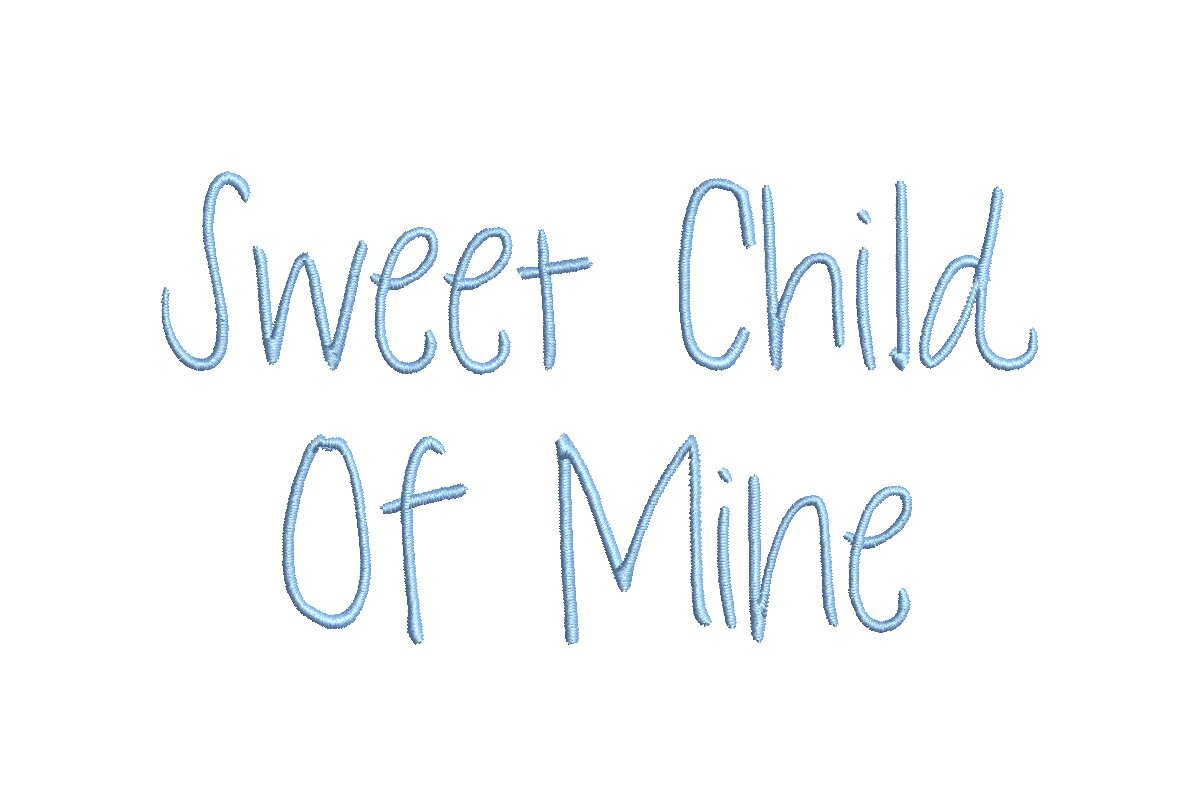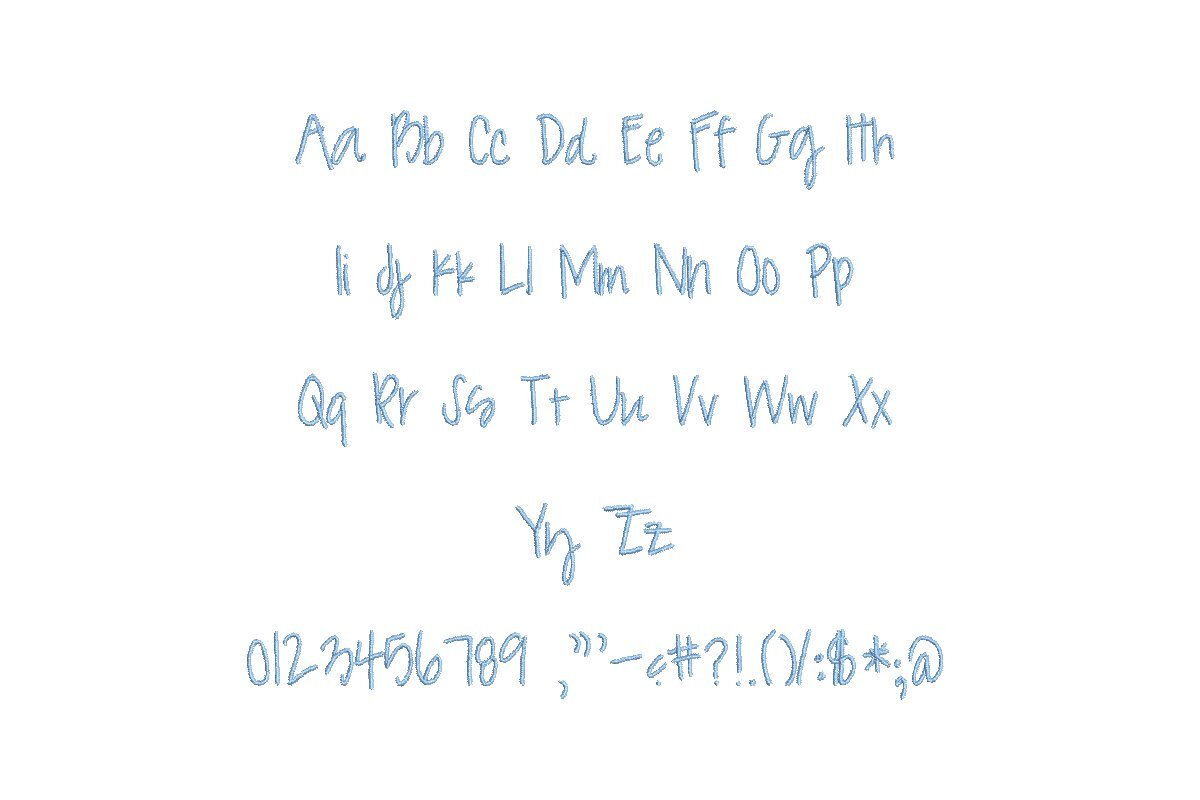
Introducing Sweet Child Of Mine ESA Font - Your Melody of Embroidery Bliss! Tailored for seamless compatibility with Wilcom Studio e4.5.6 and Hatch 3 versions and beyond, this font is your harmonic companion in creating heartfelt embroidery designs. Its charming, whimsical design adds a touch of warmth to your projects, ensuring they resonate with joy. Achieve professional-quality embroidery with ease, thanks to this user-friendly digitized font, promising precision in every stitch. Immerse yourself in a world of boundless creative possibilities with Sweet Child Of Mine ESA Font, and elevate your Wilcom Studio and Hatch software. Choose the melody of joy over the ordinary - upgrade today for an extraordinary embroidery journey. Your designs deserve to sing with sweetness.